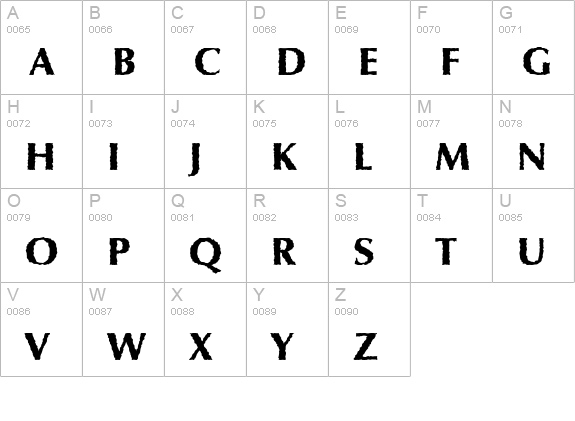
Grunge Opustn Heavy is a heavy, high-impact variant in the Grunge typeface family \xE2\x80\x94 well suited to high-impact headlines, posters, and display advertising.
Introducing Grunge Opustn Heavy font, a bold and edgy typeface designed for those seeking to make a statement with their typography. This font features rugged and distressed elements that exude a raw and rebellious vibe, perfect for projects that call for a gritty and urban aesthetic. Grunge Opustn Heavy font is versatile and eye-catching, making it ideal for a wide range of design applications, from posters and album covers to branding and packaging. The best part? Grunge Opustn Heavy font is available for free download at FontsMarket.com, allowing you to add this striking typeface to your collection without breaking the bank. Whether you're a seasoned designer looking to spice up your projects or a newcomer exploring the world of typography, Grunge Opustn Heavy font offers a unique and captivating option that is sure to make your designs stand out. Download it today and unleash your creativity with this dynamic and expressive font!